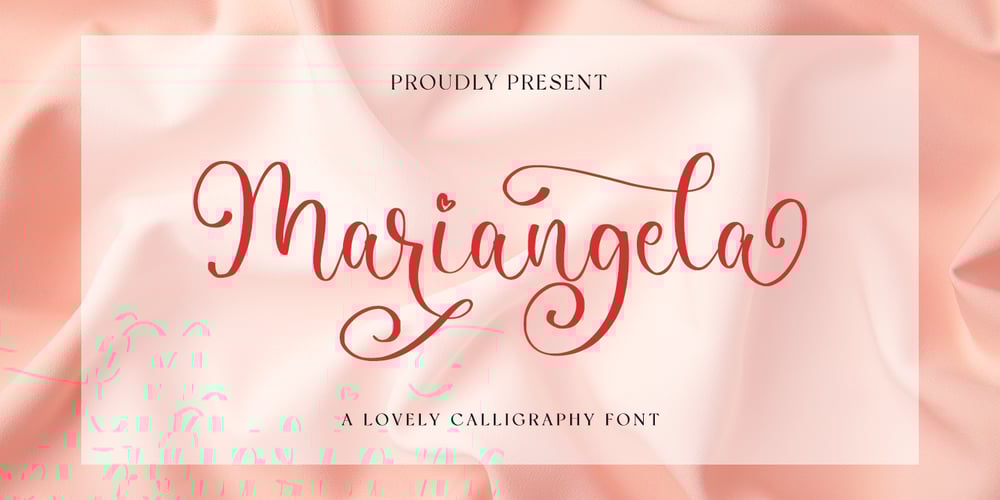
Mariangela
Mariangela font
Mariangela Font Family was designed by Novia Himatunnisa and published by Nissa Nana. Mariangela contains 1 styles and family package options. Mariangela is an elegant and dainty handwritten font that features sweet and delicate swashes. This original look will appeal to a wide range of crafty ideas.